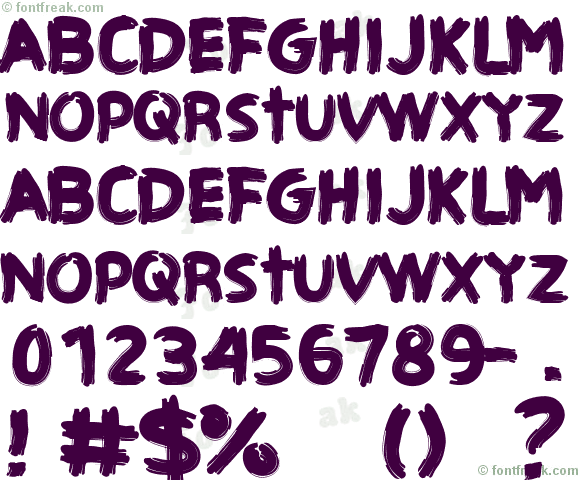
CF Haunted House Regular
About CF Haunted House Regular
CF Haunted House Regular by Cloutierfontes is a decorative font that embodies a playful yet eerie aesthetic, perfect for capturing the essence of Halloween or any spooky-themed project. The font features bold, chunky letterforms with a slightly irregular stroke weight, enhancing its whimsical character. Its design reflects a hand-drawn style, with uneven edges that evoke a sense of fun and excitement, making it ideal for creating a lively atmosphere.
This font's visual characteristics include a high contrast between thick and thin strokes, which adds to its dramatic flair. The ample spacing between letters allows for readability while maintaining a striking visual impact. Decorative elements, such as the jagged edges and uneven baseline, contribute to its overall haunted house theme, making it an eye-catching choice for various creative applications.
CF Haunted House Regular is particularly well-suited for use in Halloween party invitations, children’s book covers, movie posters for horror or fantasy genres, and themed merchandise like T-shirts and stickers. Additionally, it can add a unique touch to social media graphics aimed at engaging audiences during the spooky season.
The target audience for this font includes graphic designers, small business owners, and content creators looking to infuse a sense of fun and spookiness into their projects. Whether you're designing for a haunted attraction, a Halloween event, or any creative venture that calls for a touch of whimsy, this font will surely capture attention.